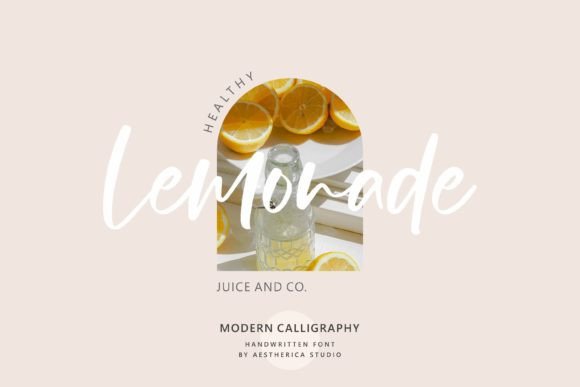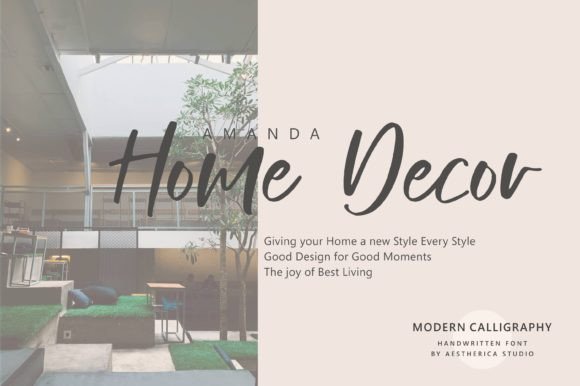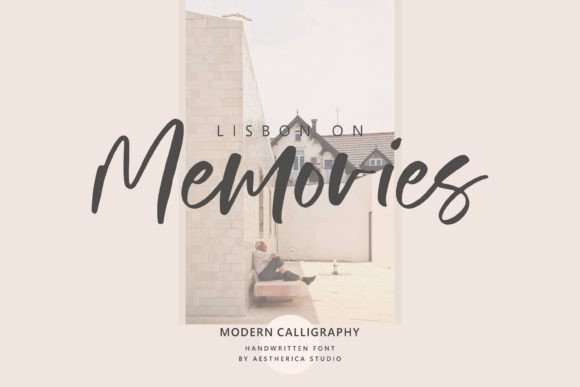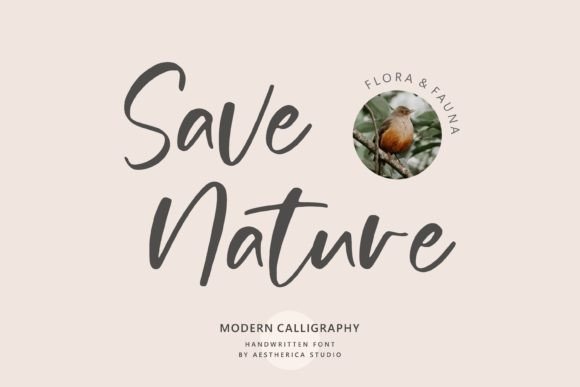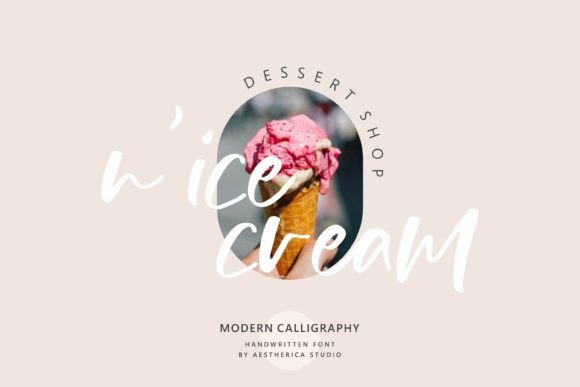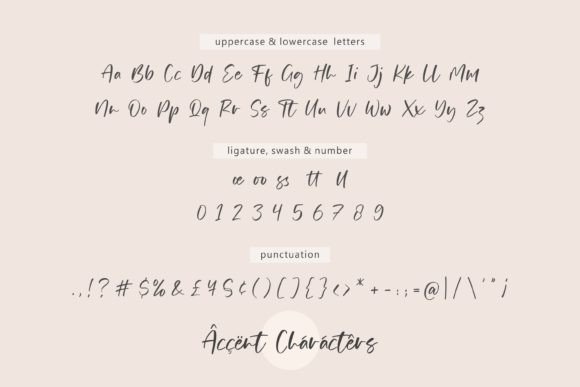
The Art of Handwritten Charm: Introducing Blooming Font
Have you ever been in the middle of a creative project, staring at a blank page or screen, and suddenly, a burst of inspiration hits? The ideas start flowing, and you can’t help but feel a sense of excitement and anticipation. For designers, this moment is what makes all the hard work worth it. And for those looking to add a touch of handwritten charm to their projects, Blooming Font is here to make that vision a reality.
Blooming Font is a modern calligraphy font designed to bring a personal touch to branding projects, logos, and any other creative endeavor. Its versatility and elegance make it a valuable asset for designers, allowing them to convey a sense of sophistication and whimsy in their work. Whether you’re a seasoned pro or just starting out, Blooming Font is sure to become your go-to font for adding a touch of handwritten magic to your projects.
Blooming Font Key Features
- Font Family: Blooming Font offers a unique, hand-drawn floral design with 12 styles, from Light to Black.
- Unique Characteristics: The font features intricate, hand-painted details and a delicate, organic feel, making it ideal for creative and feminine designs.
Blooming Font Review
As a designer, I’m always on the lookout for unique and eye-catching fonts. Blooming Font caught my attention, and I decided to give it a try. Overall, I’m impressed with its potential, but it has some limitations that might make it a less-than-ideal choice for some projects.
- Unique design: Blooming Font has a distinctive, organic feel that can add a touch of whimsy to your designs.
- Limited character set: Blooming Font has a relatively small character set, which might make it less suitable for projects that require a wide range of characters.
- Not ideal for body text: While Blooming Font is great for headings and titles, it might be too playful for body text, which can make it harder to read.
- Requires careful use: Blooming Font’s unique design can be overwhelming if used excessively, so it’s essential to use it sparingly and thoughtfully.
Overall, I think Blooming Font is a great choice for designers who want to add a touch of personality to their projects. With some careful consideration and planning, it can be a valuable addition to your design toolkit.
Tips for Getting the Most Out of Blooming Font
Experiment with different font sizes and colors to create visually appealing designs. Use the Blooming Font in combination with other creative elements, such as illustrations and graphics, to add depth and interest to your designs. Consider using the Blooming Font for headings and titles to create a clear visual hierarchy.
The Blooming Font is ideal for creative projects, such as social media graphics, blog posts, and marketing materials. It can also be used for educational and informational content, such as infographics and presentations. The Blooming Font is particularly effective for conveying a sense of growth, development, and transformation.